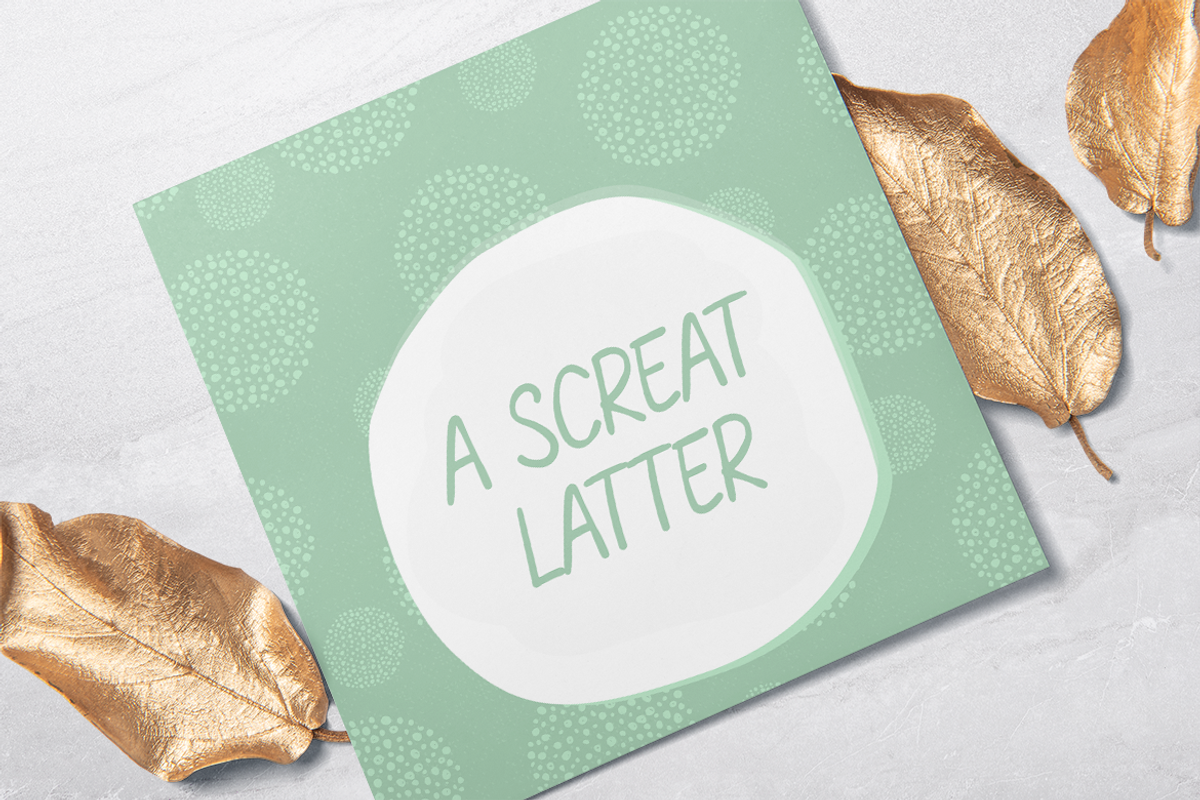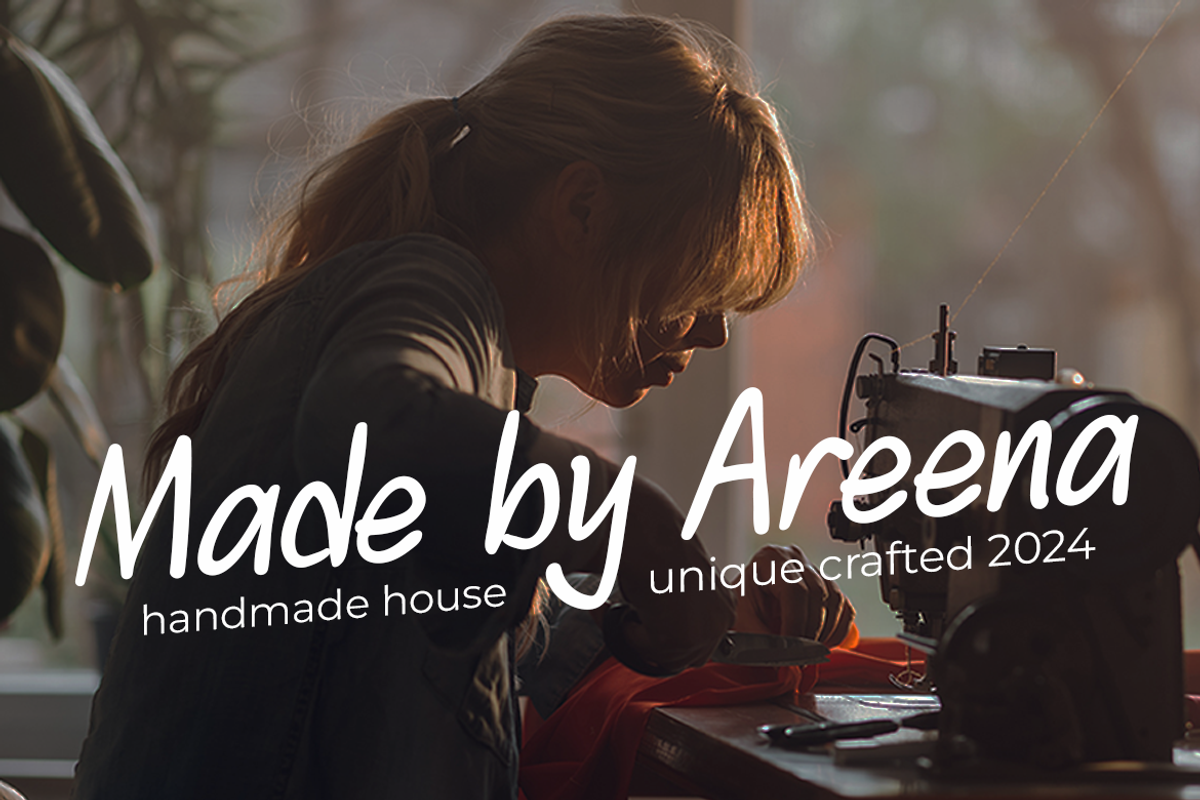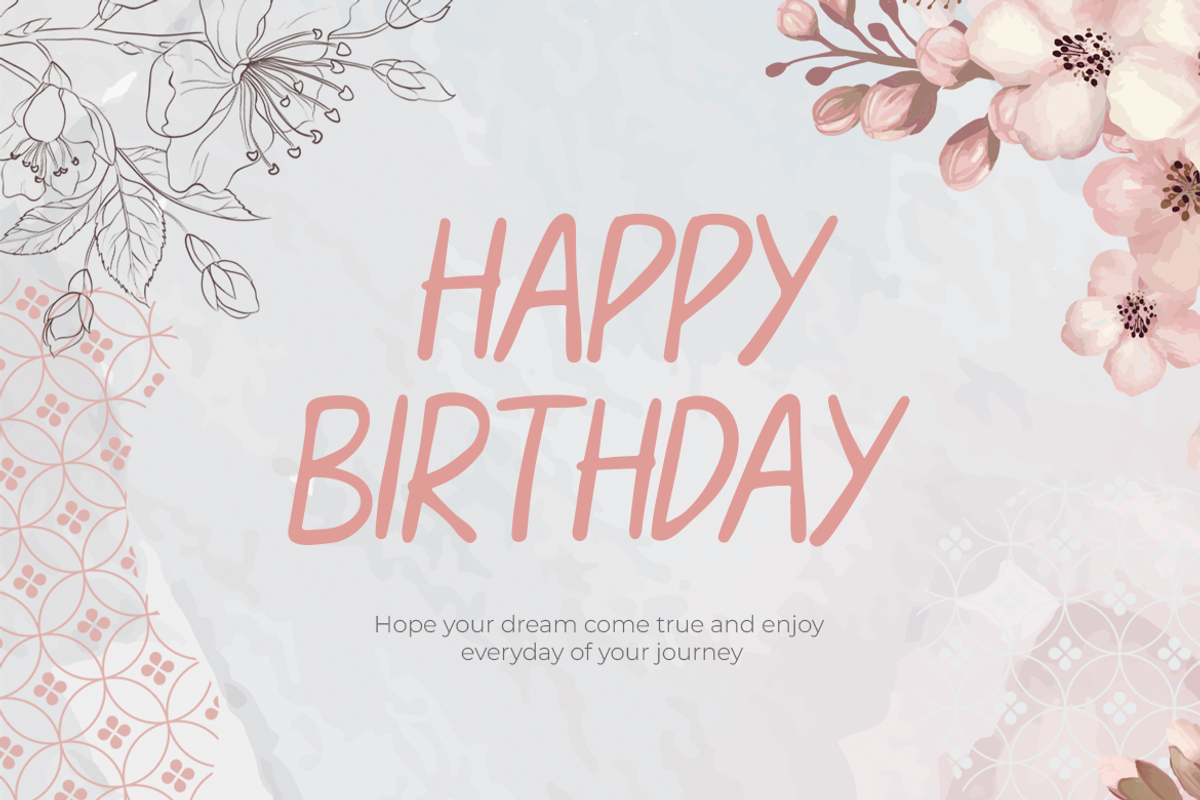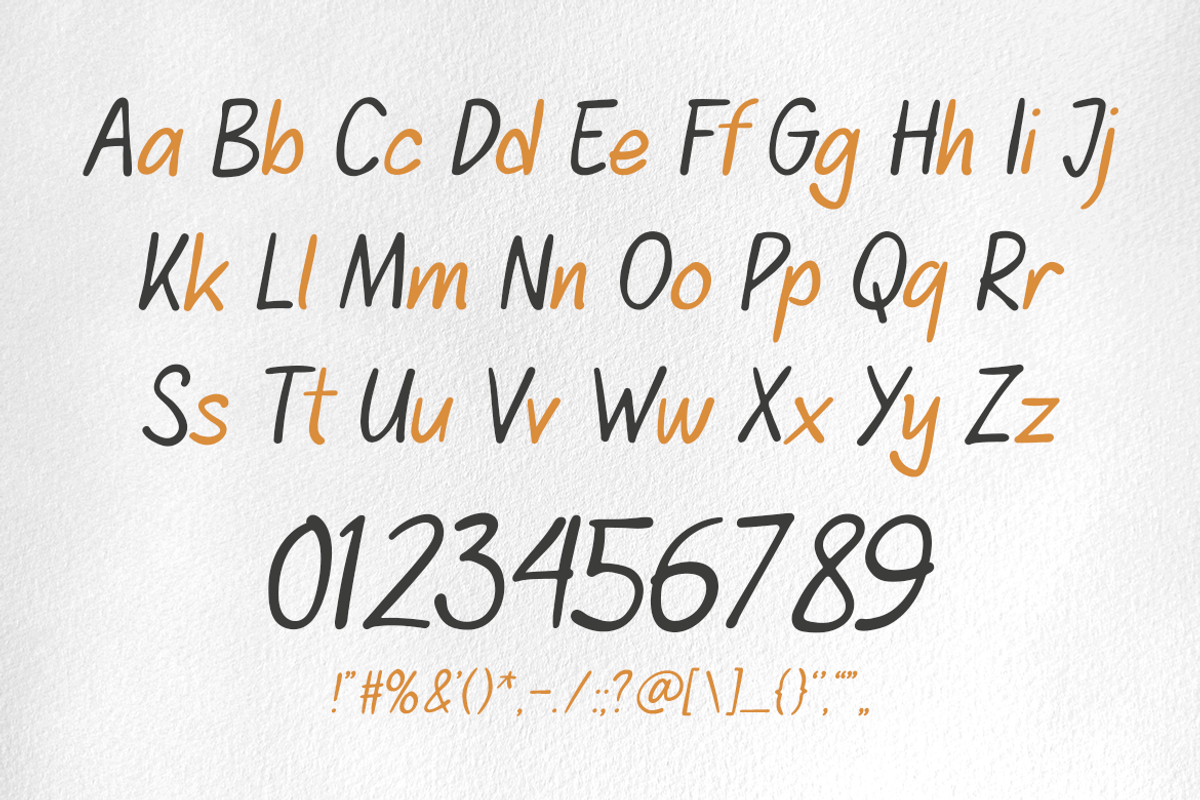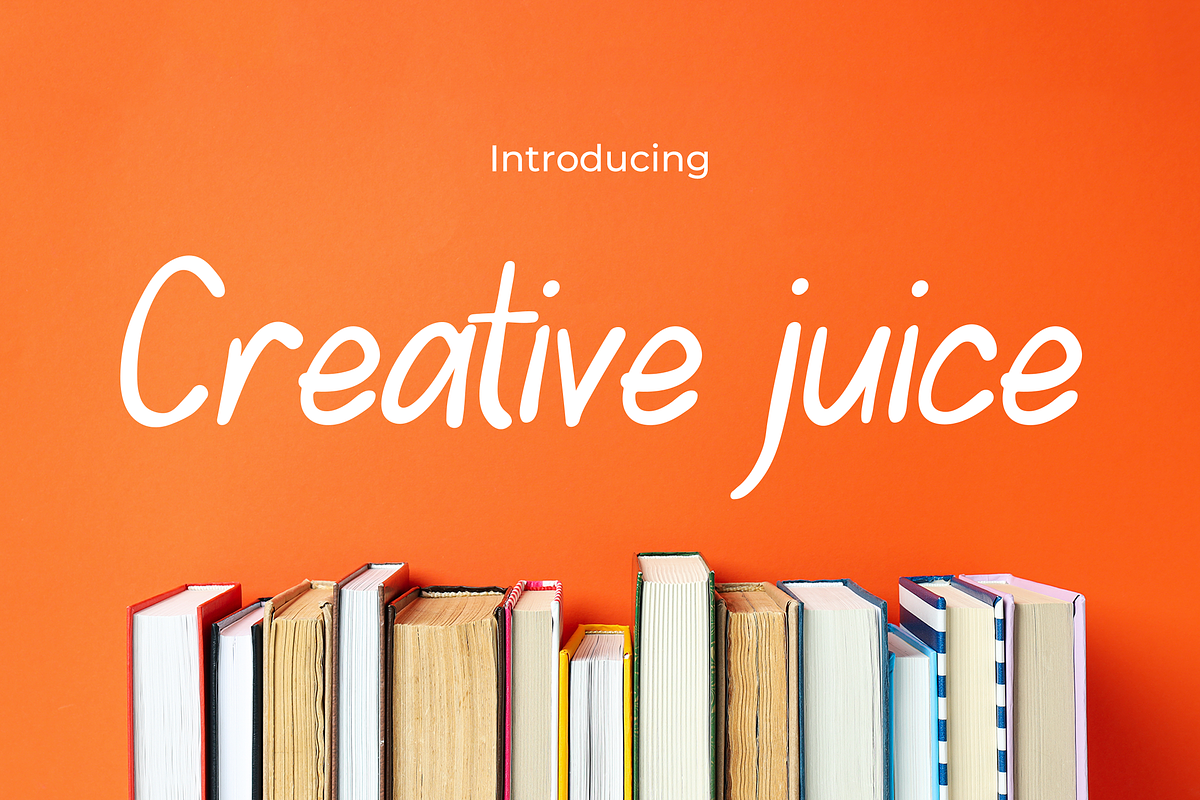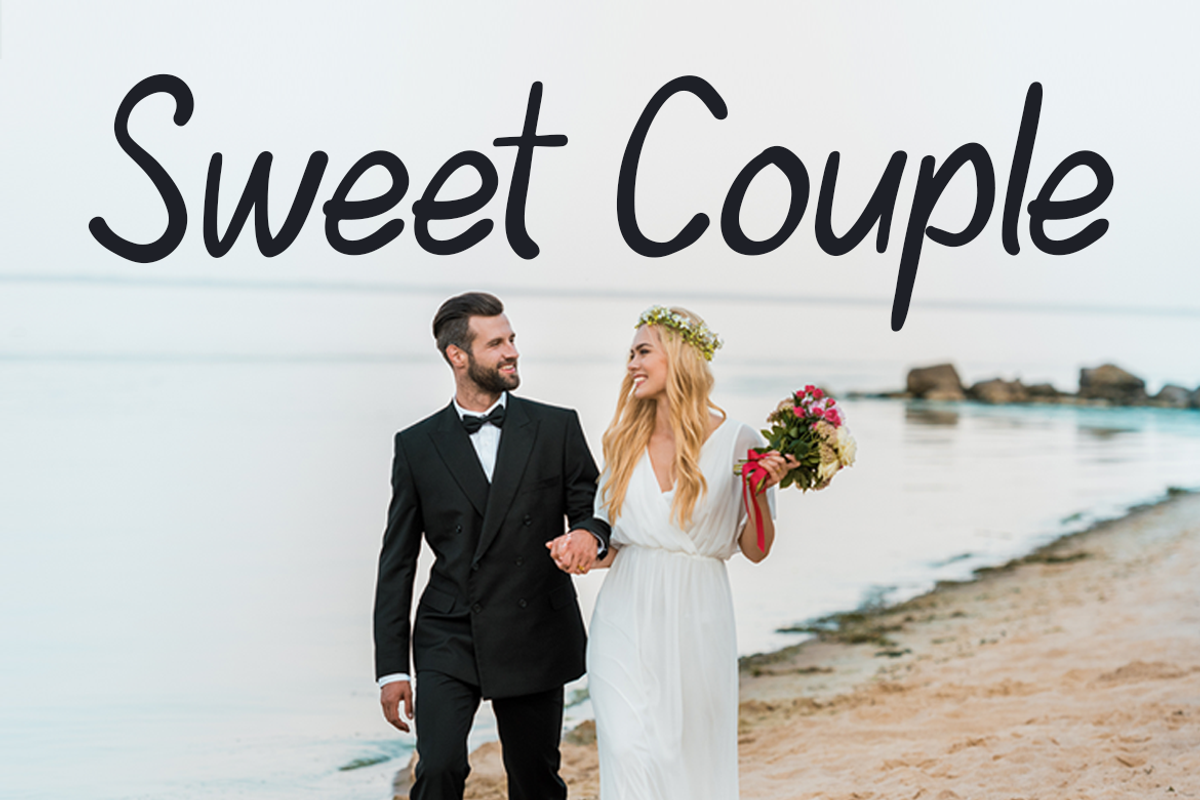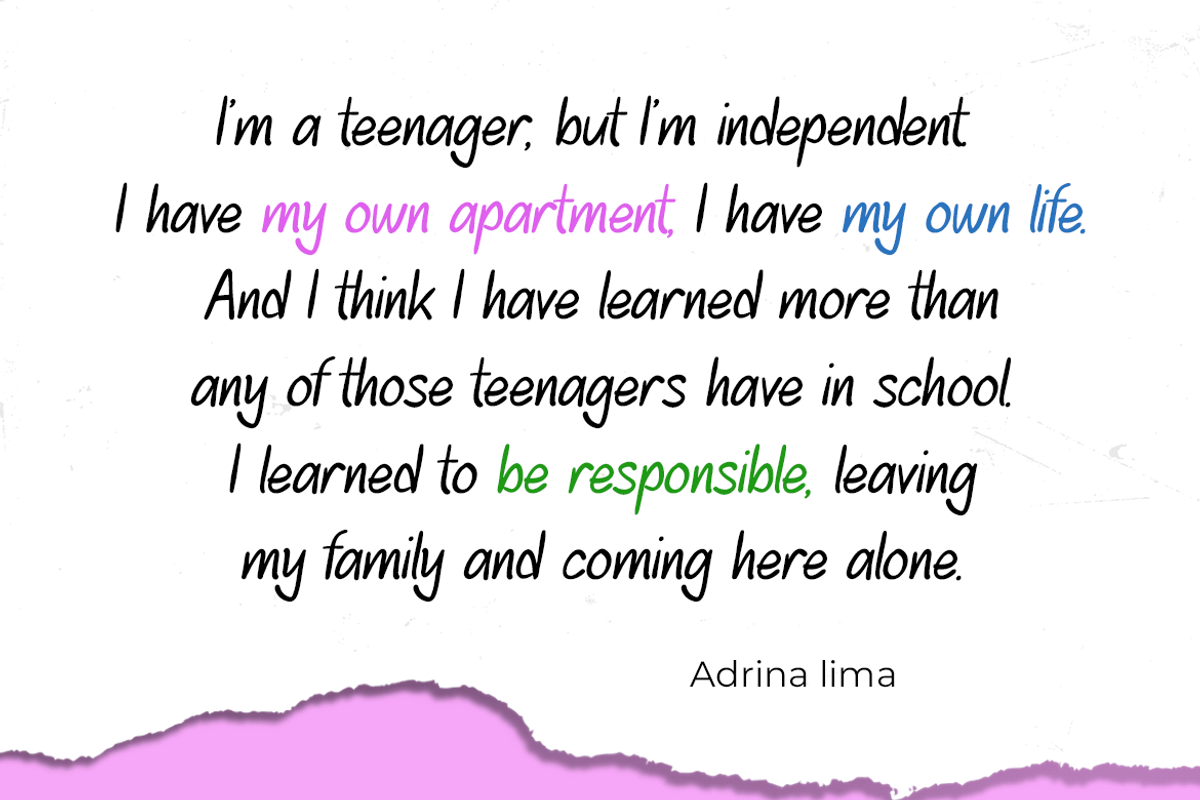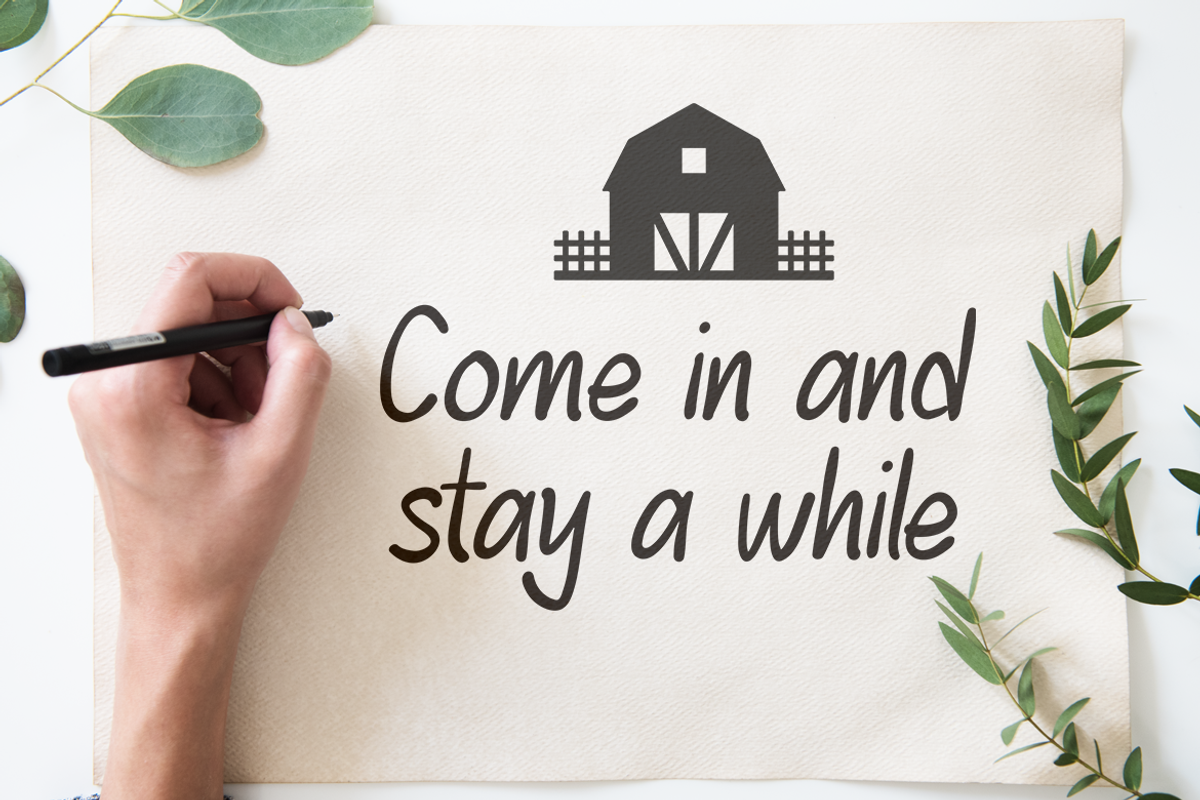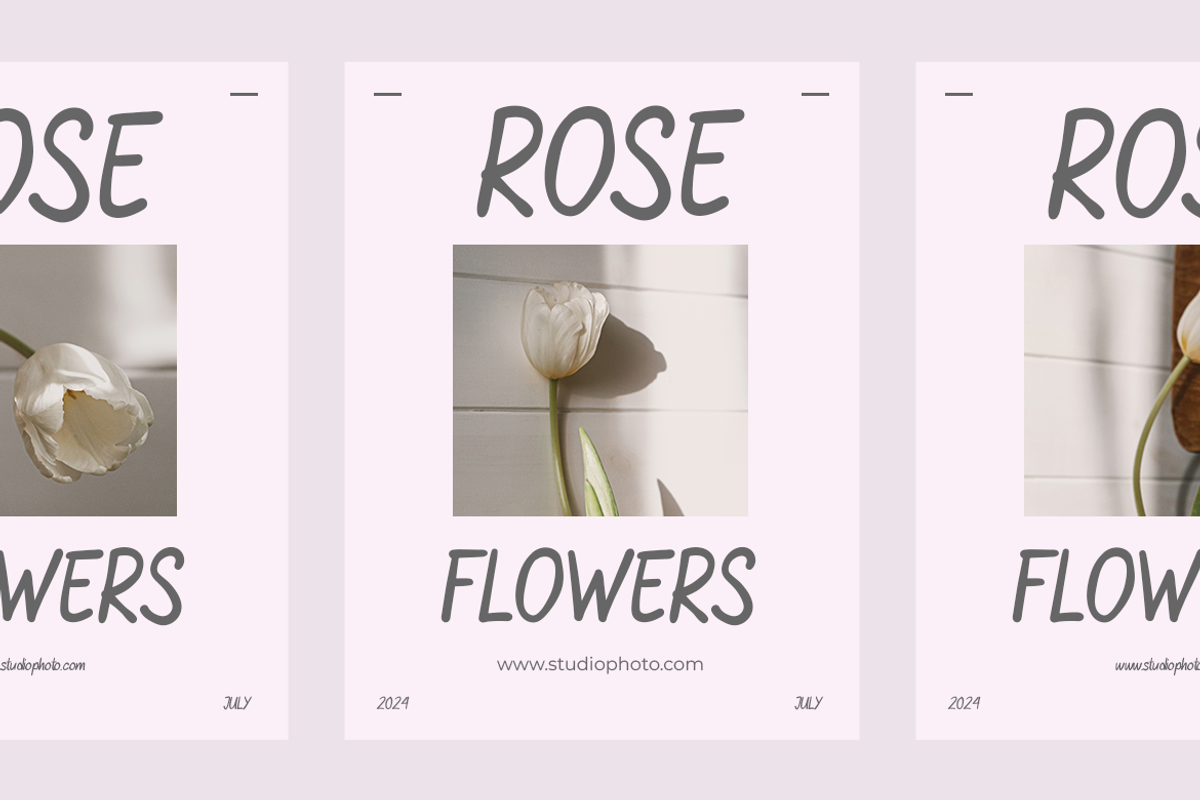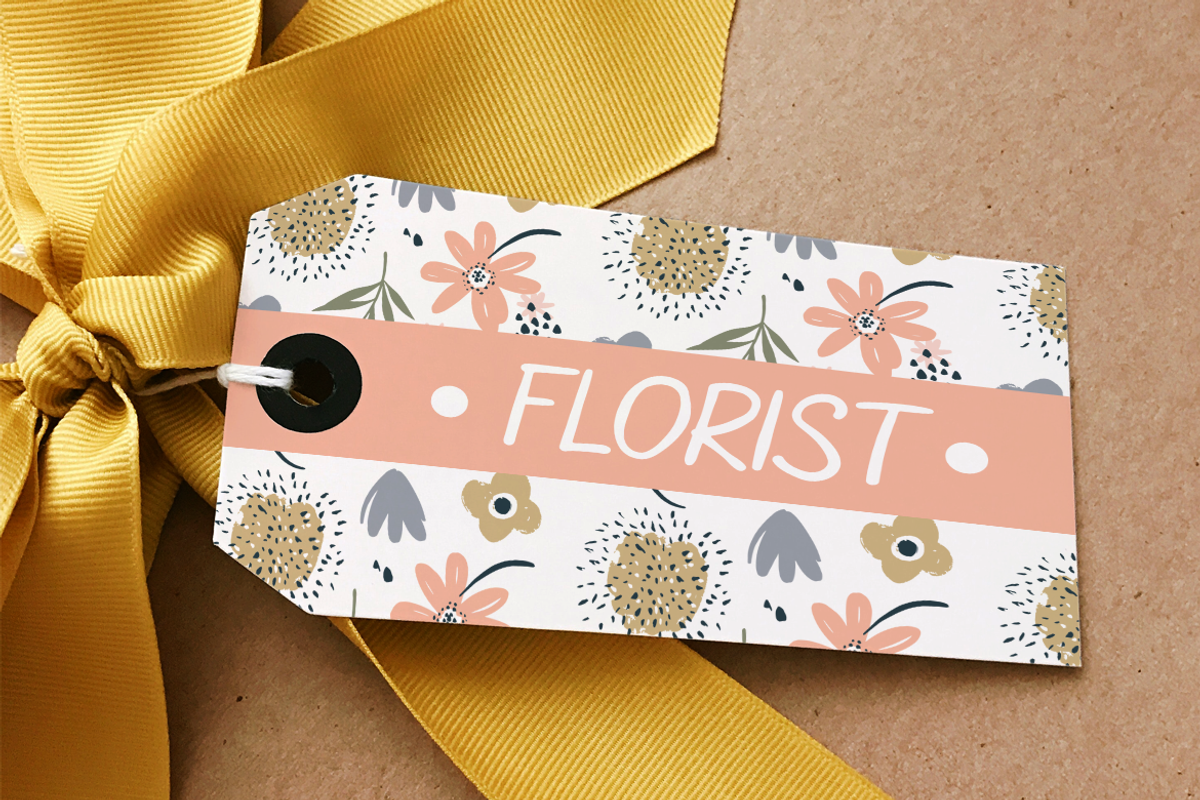
Creative Juice
Creative Juice Font – Creative Spirit for Your Cheerful, Romantic, and Florist Designs!
Infuse joy, romance, and floral touches into your designs with Creative Juice Font! Designed with a cheerful theme, romantic couples, and florist elements, each letter in this font is a splash of creativity ready to bring your projects to life. Suitable for various purposes, from wedding invitations to floral designs, Creative Juice Font provides a bright and romantic atmosphere.